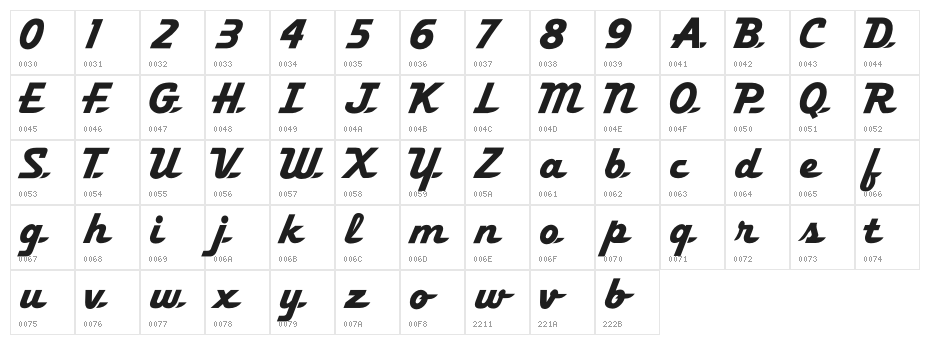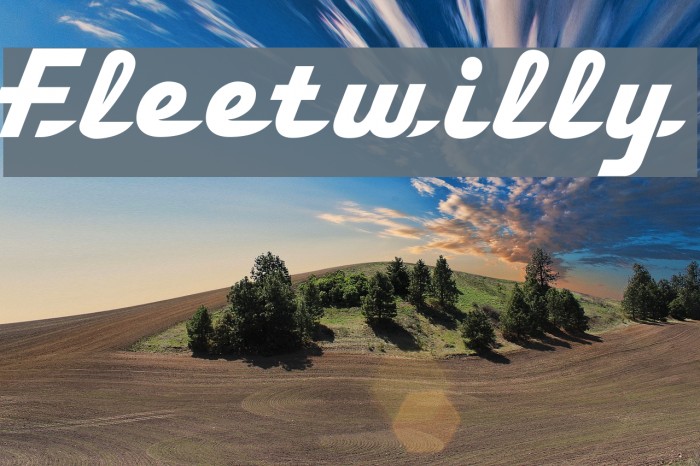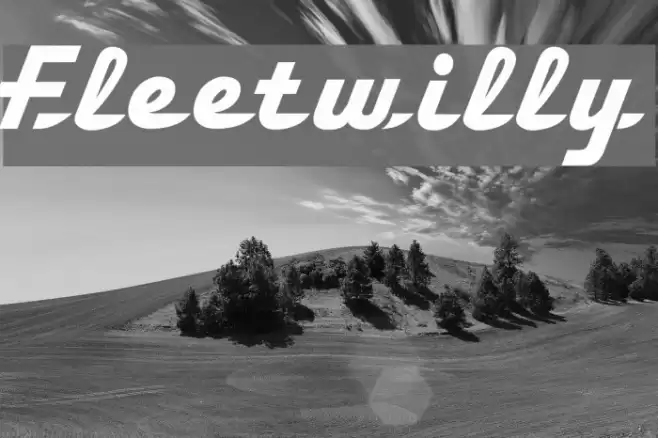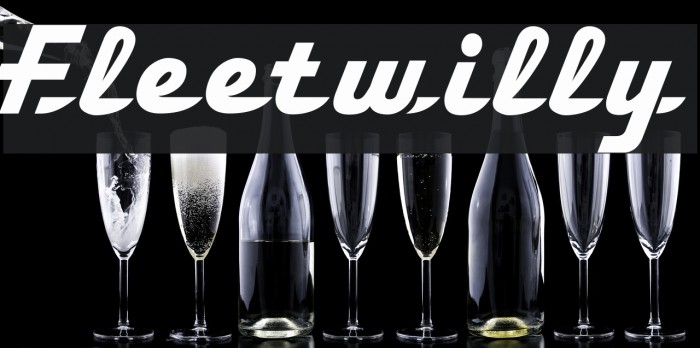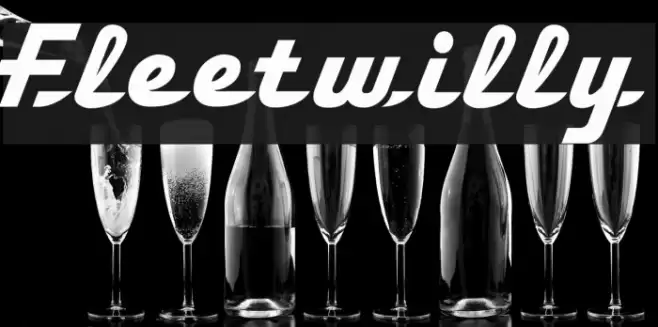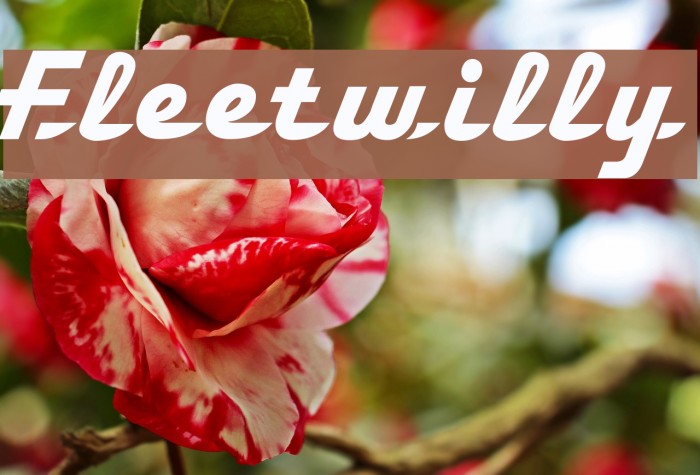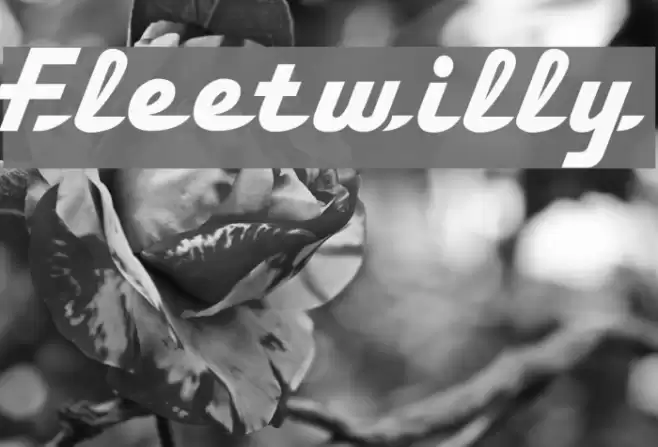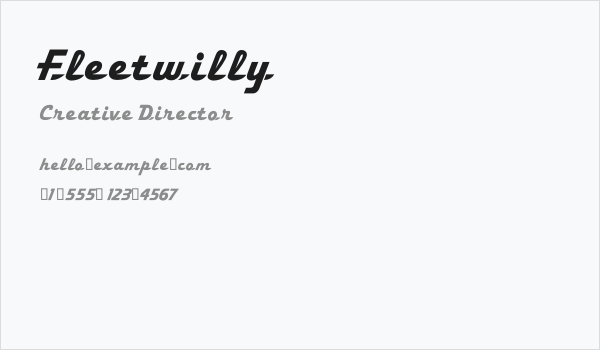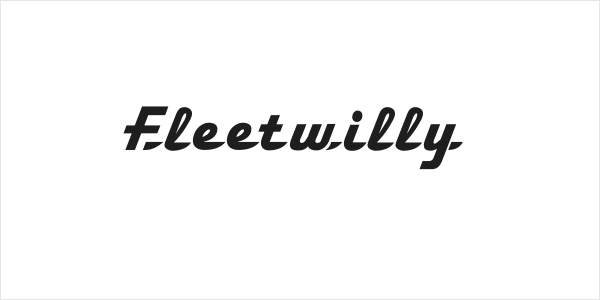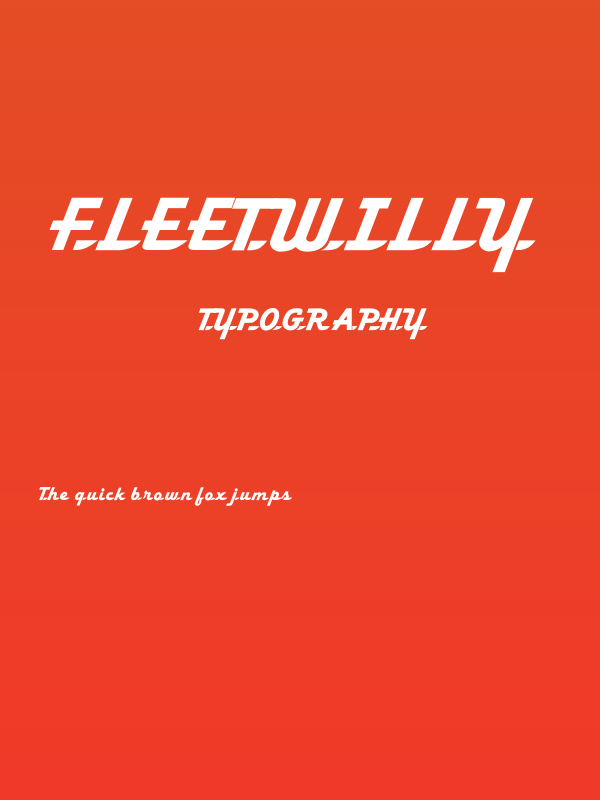
Fleetwilly Font
Fleetwilly Description
This font features a bold and dynamic style with a strong italic slant, giving it a sense of motion and energy. The characters are well-defined with a consistent stroke width, creating a cohesive and impactful appearance. The uppercase letters are particularly striking, with sharp angles and a slightly condensed form that enhances their boldness. The lowercase letters maintain the same energetic style, with smooth curves and a slight forward tilt. The numerals are clear and bold, matching the overall aesthetic of the font. This font is ideal for projects that require a sense of speed and modernity.
| Use Case | Logos, Headlines |
| Proposed Projects | Ideal for branding, sports team logos, automotive designs, and dynamic advertising. |